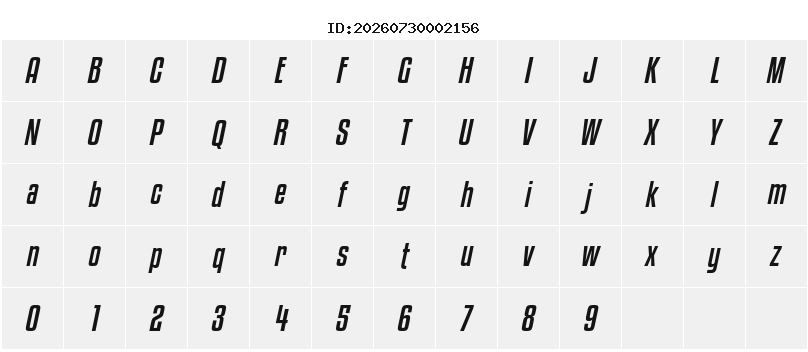
• Font Name: Kenyan Coffee Rg
• Designer: Ray Larabie
About Kenyan Coffee Rg.ttf
Kenyan Coffee Rg.ttf is a modern, elegant sans-serif font designed for ultimate readability and visual harmony. Perfect for branding, headlines, web design, and print materials.